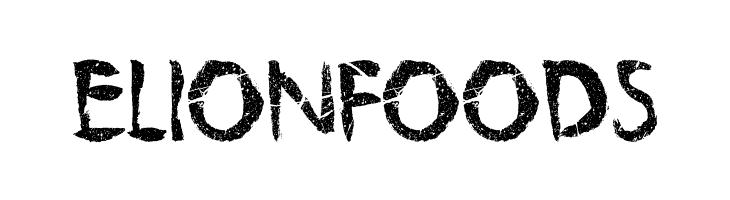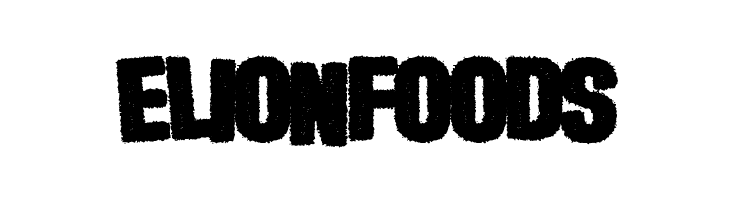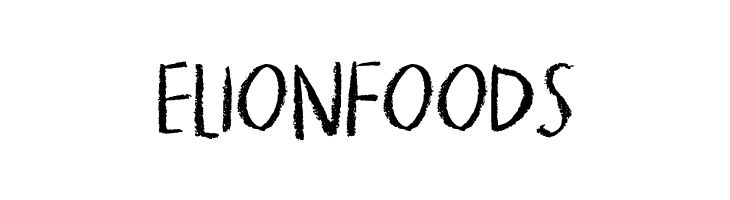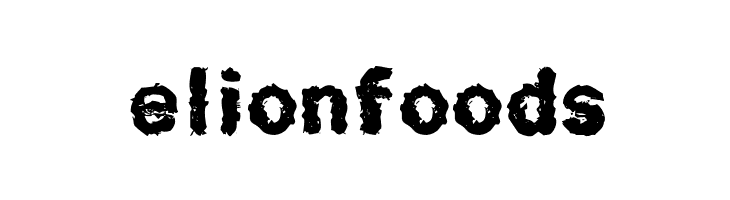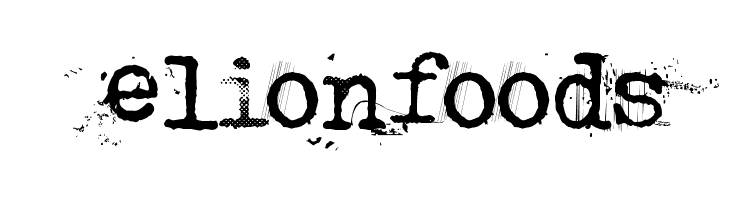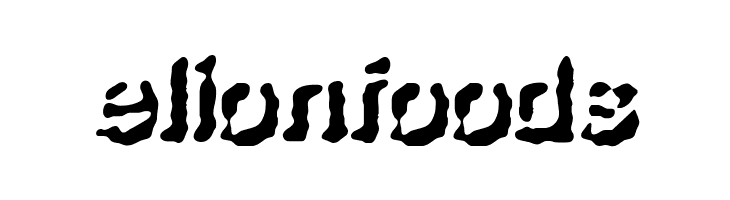
A bold, textured font with a gritty, distressed style ideal for spooky themes.
A bold, textured font with a rustic, handcrafted appearance.
A textured, hand-drawn font with an informal, artistic style.
A bold, textured font with a rugged, rocky appearance.
A bold, textured font with a rock-like appearance.
A distressed, grunge-style font with a textured, vintage appearance.
A rugged, distressed font with bold, jagged edges and a grunge aesthetic.
A bold, distressed font with an eroded, organic appearance.